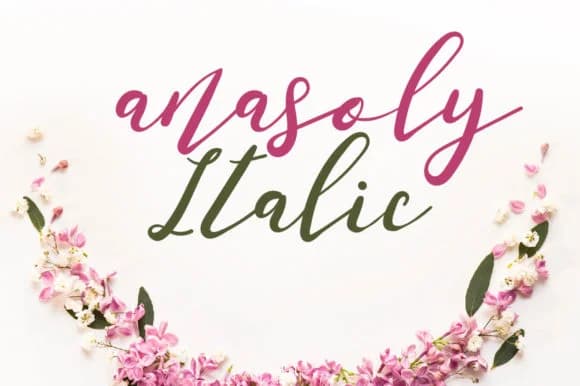
Anasoly Italic by Zmapist is a handwritten script that balances spontaneity with sophistication. The typeface captures that organic quality of pen on paper while maintaining a contemporary edge that keeps it current and vital. Each letterform flows with natural rhythm, giving the font presence whether you set it bold and large or at smaller sizes for body text work.
Wedding invitation suites gain immediate warmth from this italic, where its fluid letterforms bring intimacy without sacrificing refinement. Cosmetic and skincare brands turn to it for packaging that needs to feel artisanal yet polished. Fashion lookbook headers and mood boards benefit from the font's expressive character and inherent movement. Handmade product labels for boutique goods also work beautifully since Anasoly carries that genuine, handcrafted quality customers increasingly want from independent makers. Greeting card design is another natural fit, especially when you're aiming for personality over formality.
Anasoly Italic Font is a script font that shines as a display or heading face. Pair it with a clean sans-serif or serif font for body text β the contrast creates a clear hierarchy while the two styles stay balanced and easy to read.
Anasoly Italic Font